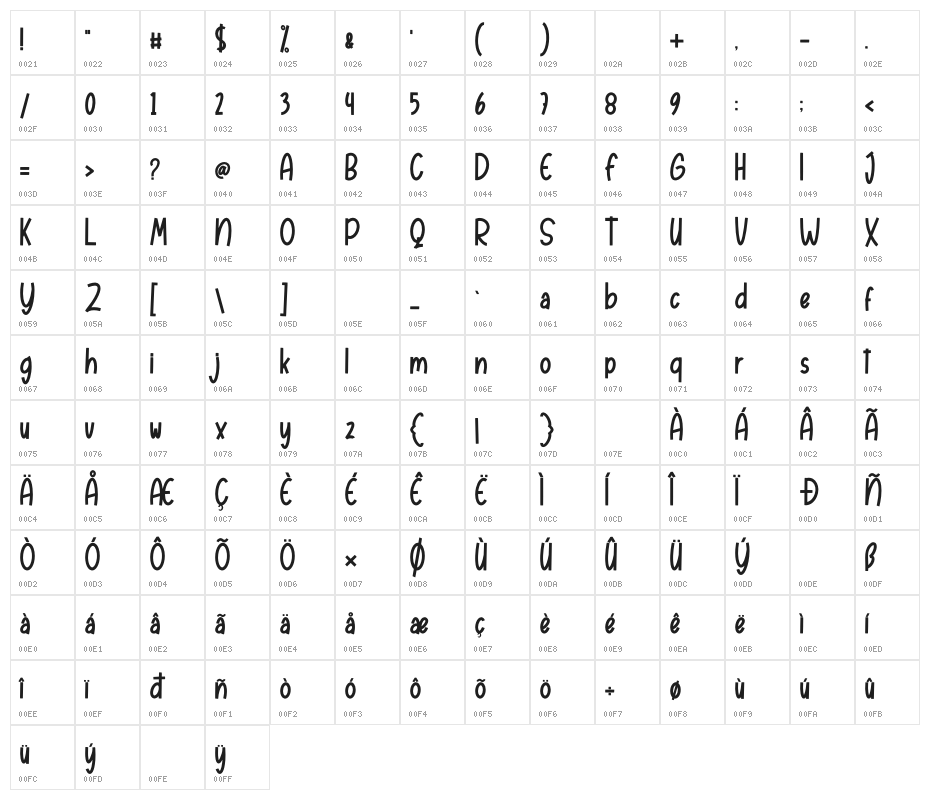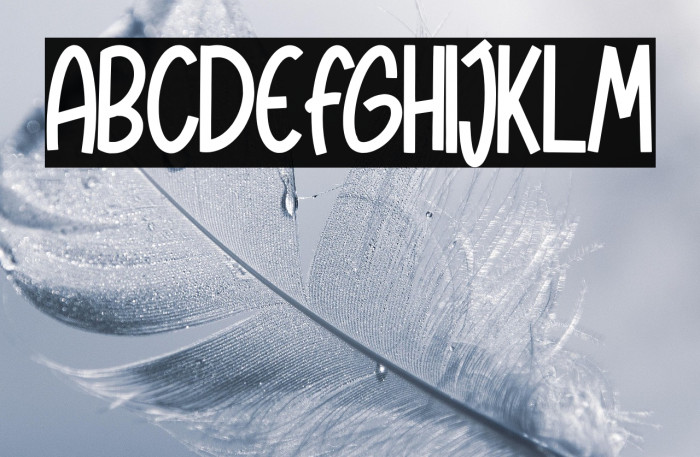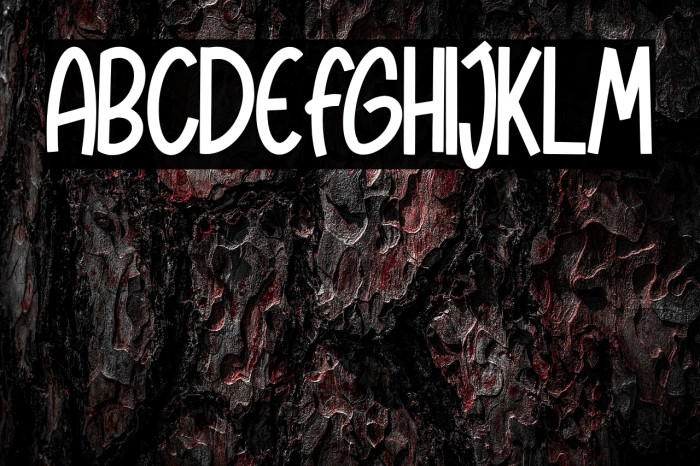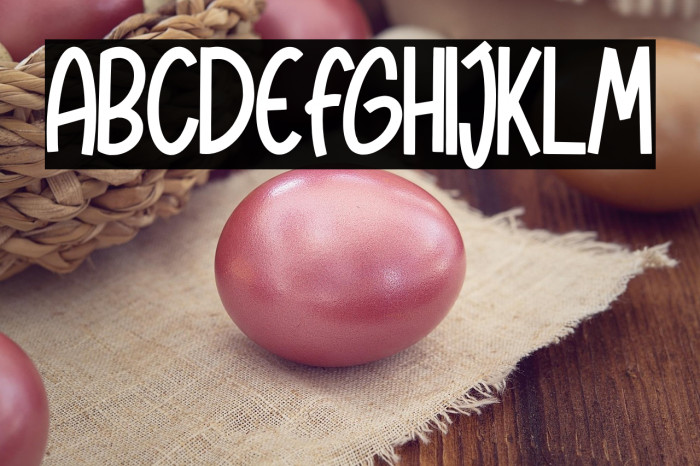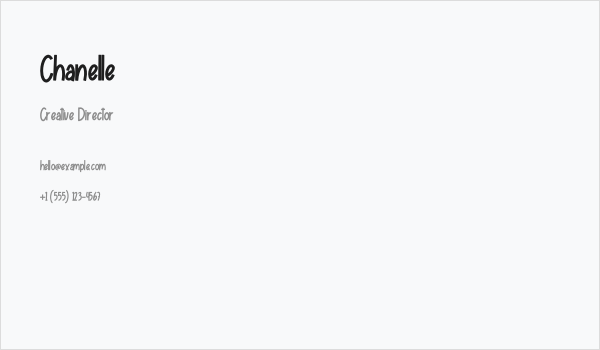
Chanelle Font
Chanelle Description
This font features a playful and whimsical style with a handwritten appearance. The letters are slightly irregular, giving it a casual and friendly vibe. The uppercase and lowercase letters maintain a consistent flow, with rounded edges and a slight tilt that adds to its charm. The numerals and special characters are designed to match the overall aesthetic, ensuring a cohesive look. This font is ideal for projects that require a touch of personality and creativity.
| Proposed Projects | Ideal for greeting cards, children's books, playful branding, and creative posters. |